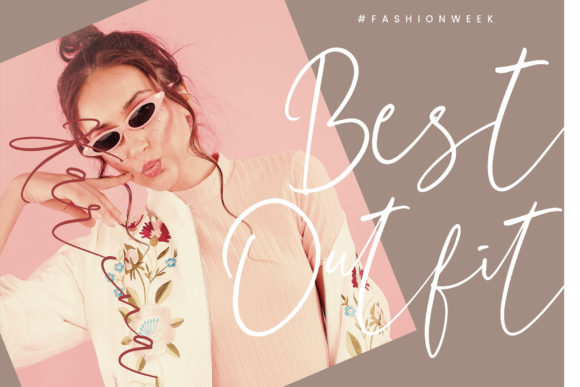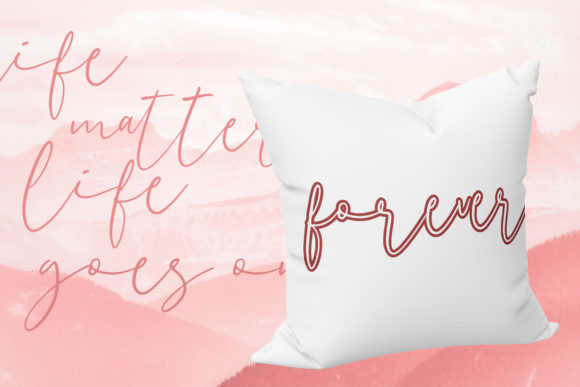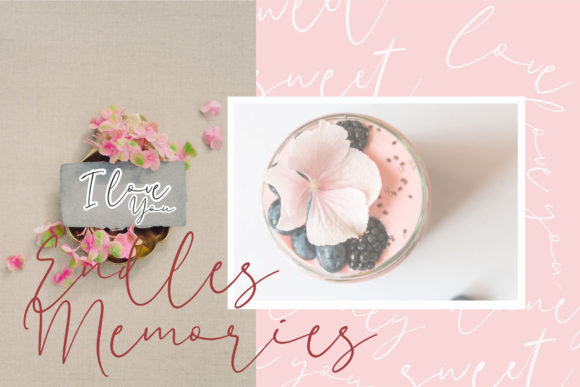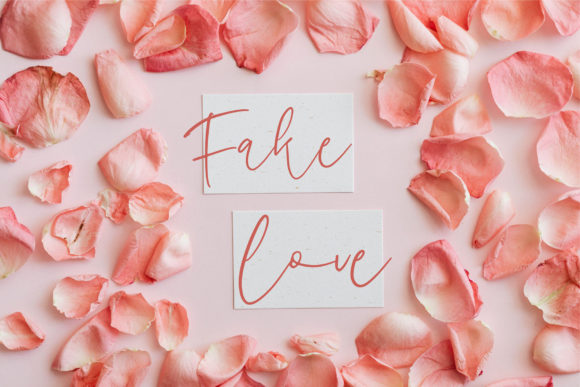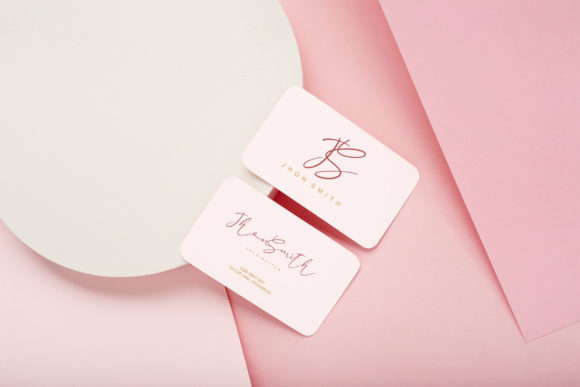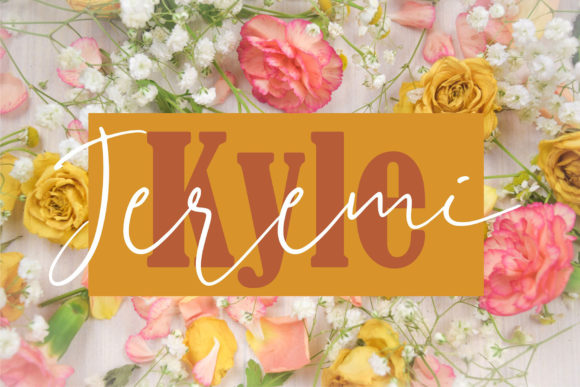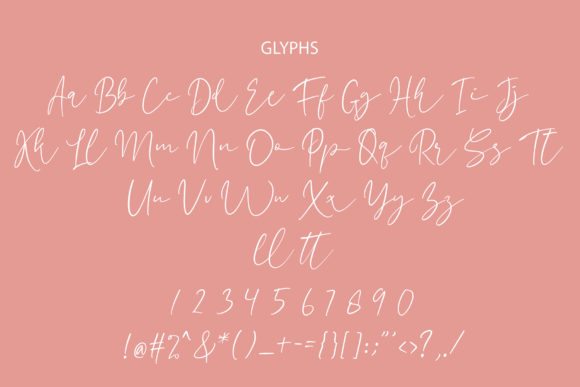
Kandita Font
About Kandita Font
Kandita is a modern and flowing handwritten font that captures attention with its versatility and beauty. Its contemporary style makes it an excellent choice for a wide range of design projects, from elegant wedding invitations to stunning stationery art and eye-catching social media posts.
When it comes to wedding invitations, Kandita adds a touch of sophistication and charm. Its flowing and elegant letterforms create a romantic and inviting atmosphere, setting the tone for a memorable celebration. Whether you’re designing classic or modern wedding invitations, Kandita adapts seamlessly to create stunning and personalized designs.
In addition to wedding invitations, Kandita can be used to create beautiful stationary art. Whether you’re designing greeting cards, art prints, or personalized stationery, this font adds a unique and artistic flair. Its flowing strokes and modern aesthetic make each piece visually captivating and memorable.
Furthermore, Kandita is perfect for creating eye-catching social media posts. Whether you’re sharing inspirational quotes, promoting products, or announcing special events, this font adds a touch of elegance and style to your social media content. Its versatility allows you to create visually engaging and cohesive posts that resonate with your audience.
One of the key strengths of Kandita is its versatility across different design projects. It is equally suitable for digital and print media, ensuring that your designs look stunning across various platforms. The flowing and modern nature of the font remains legible and visually appealing at different sizes and resolutions.
Whether you’re designing wedding invitations, stationary art, or social media posts, Kandita empowers you to unleash your creativity and create stunning designs. Its modern and flowing style adds a touch of elegance and versatility to any project, making it a font worth falling in love with.